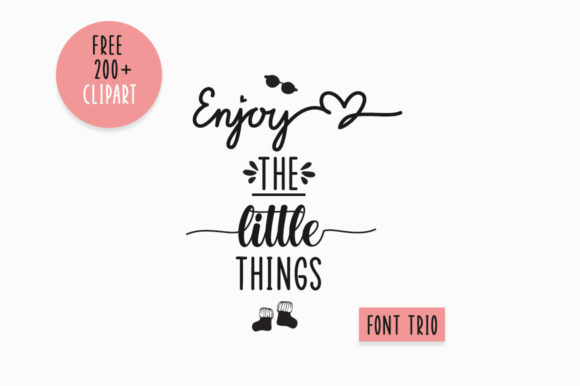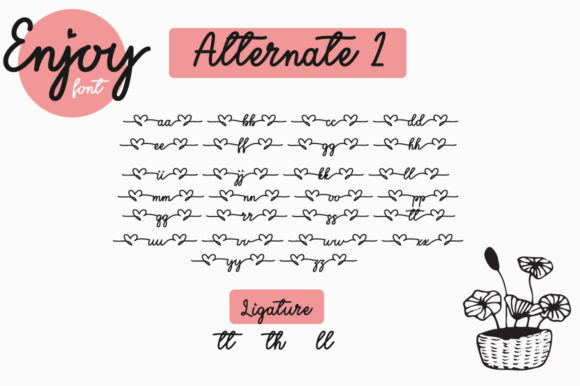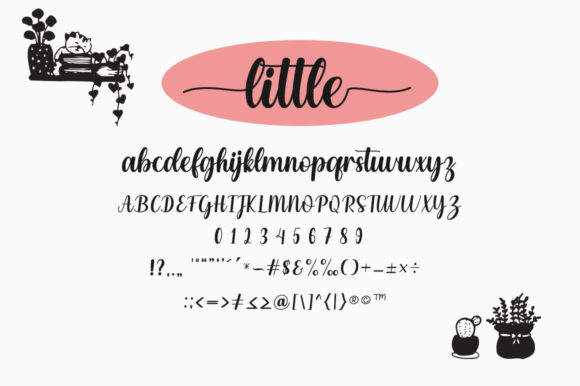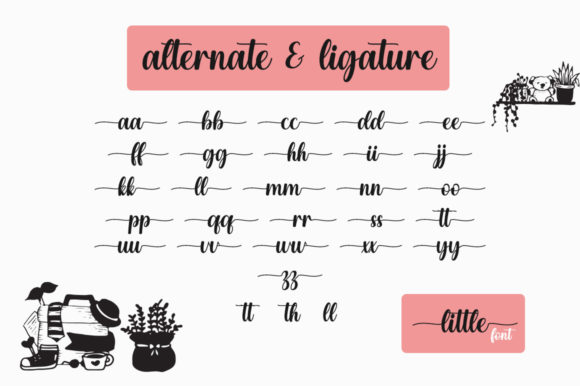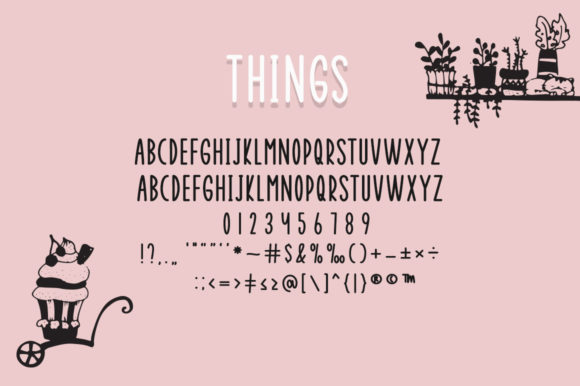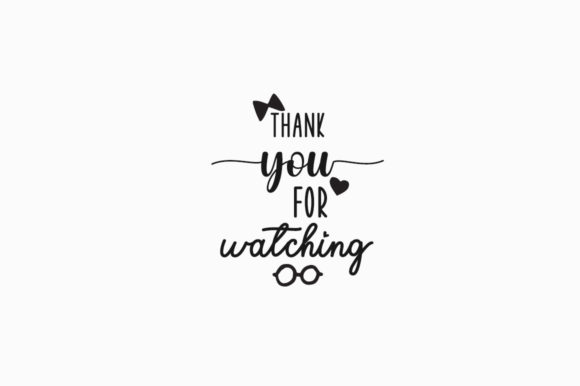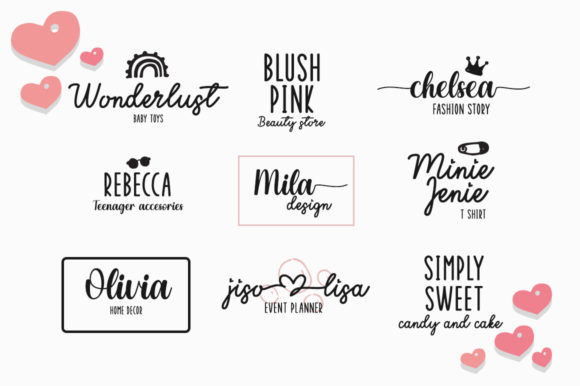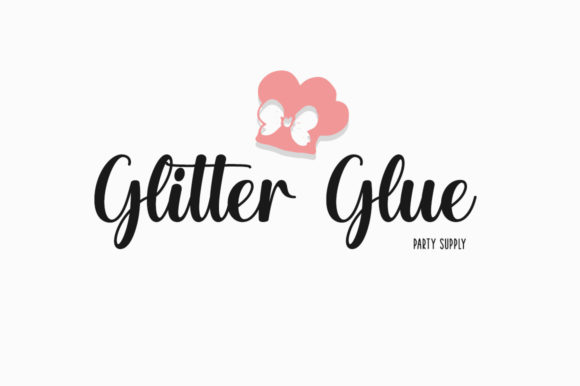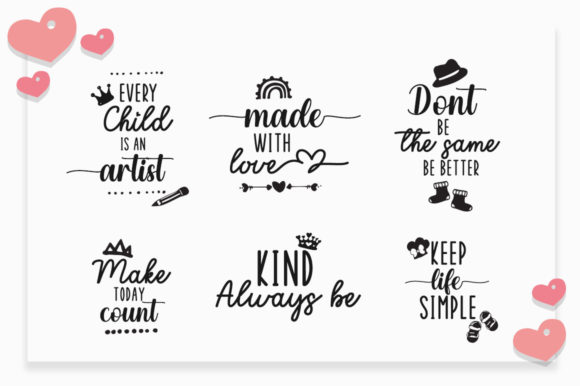
Enjoy the Little Things Font
About Enjoy the Little Things Font
Enjoy the Little Things is a charming and versatile duo font that includes both a sans serif and script style. This combination allows you to create eye-catching designs with a playful and fun touch. Whether you’re working on branding, packaging, social media graphics, or any other project, Enjoy the Little Things is sure to elevate your design to the highest levels.
The sans serif font in this duo provides a clean and modern look, perfect for adding a touch of simplicity and elegance to your designs. The script font, on the other hand, adds a whimsical and handcrafted feel with its stylish letterforms and playful curves.
With Enjoy the Little Things, you have access to a wide range of glyphs and swashes, thanks to its PUA encoding. This makes it easy to customize and personalize your designs, allowing you to create unique and eye-catching typography.
The versatility of Enjoy the Little Things makes it suitable for various design projects. Whether you’re creating invitations, greeting cards, quotes, logos, or any other creative work, this font duo will bring a delightful and playful vibe to your designs.
So, embrace the little things and let this cute and playful duo font add a touch of joy and creativity to your projects. Access all the amazing glyphs and swashes with ease and have fun experimenting with different combinations to create designs that truly stand out.